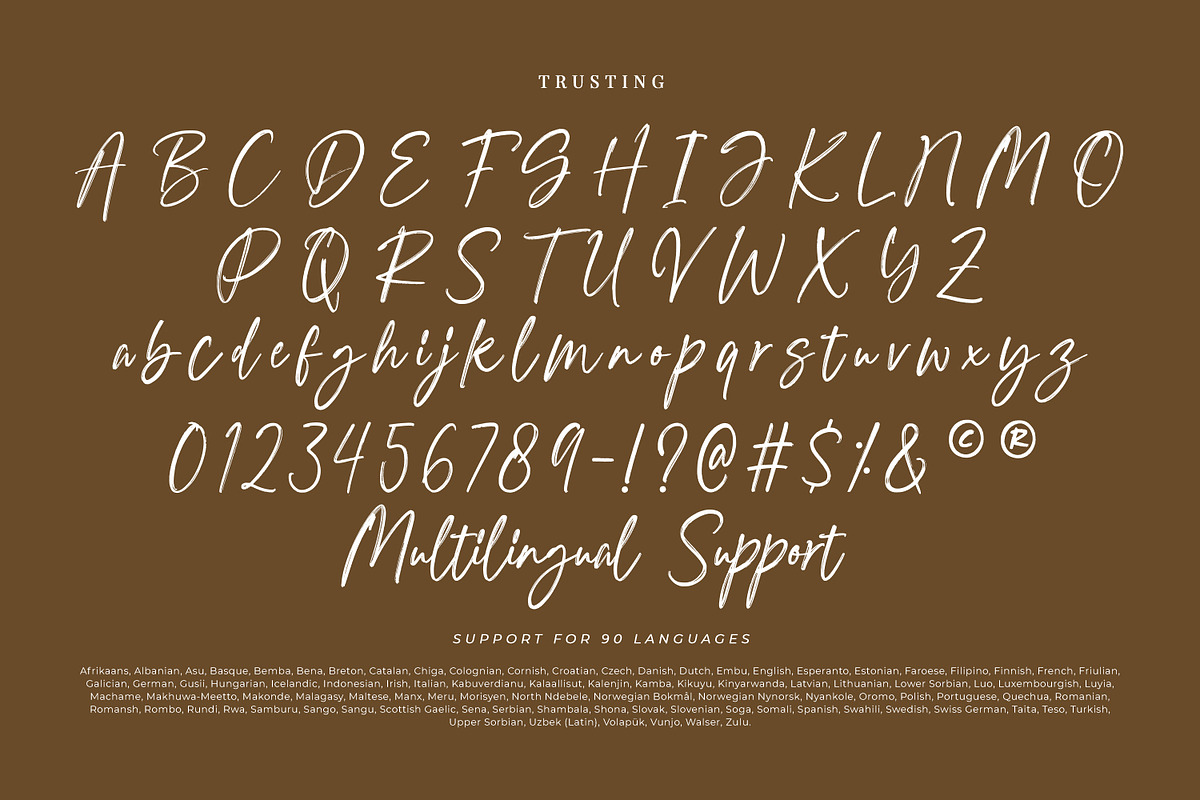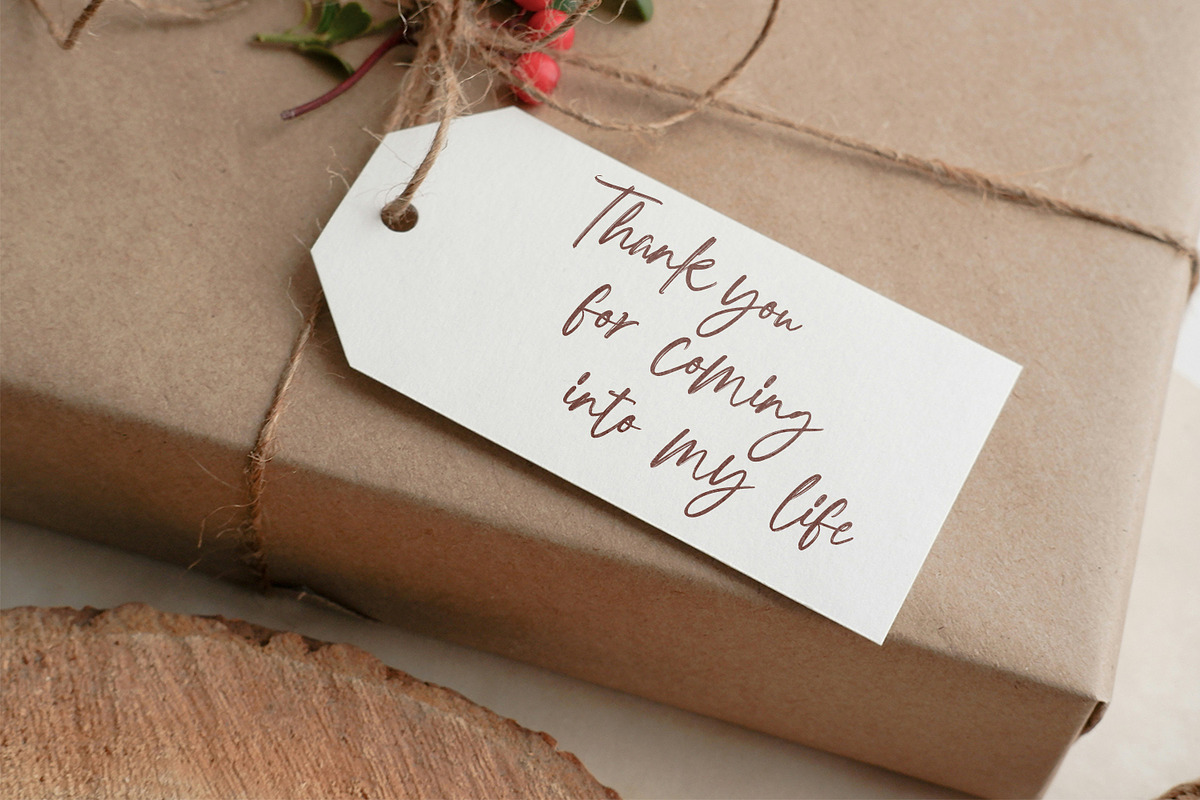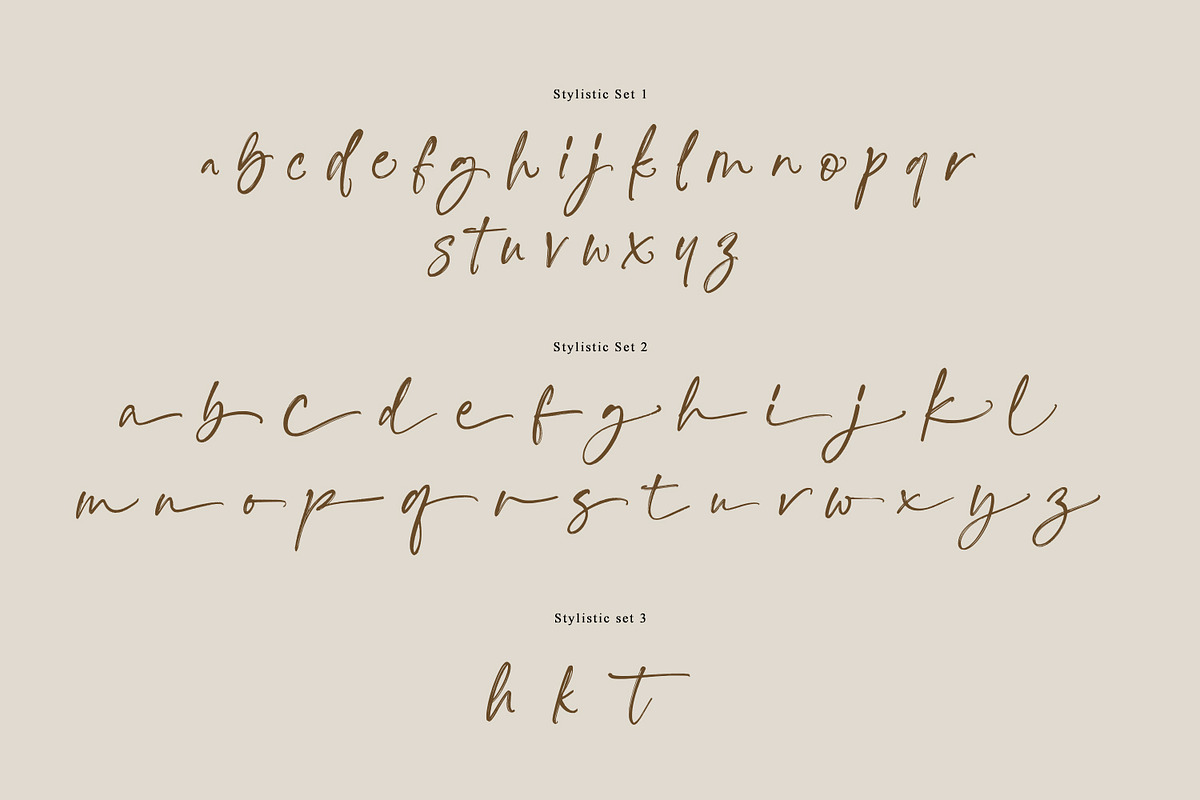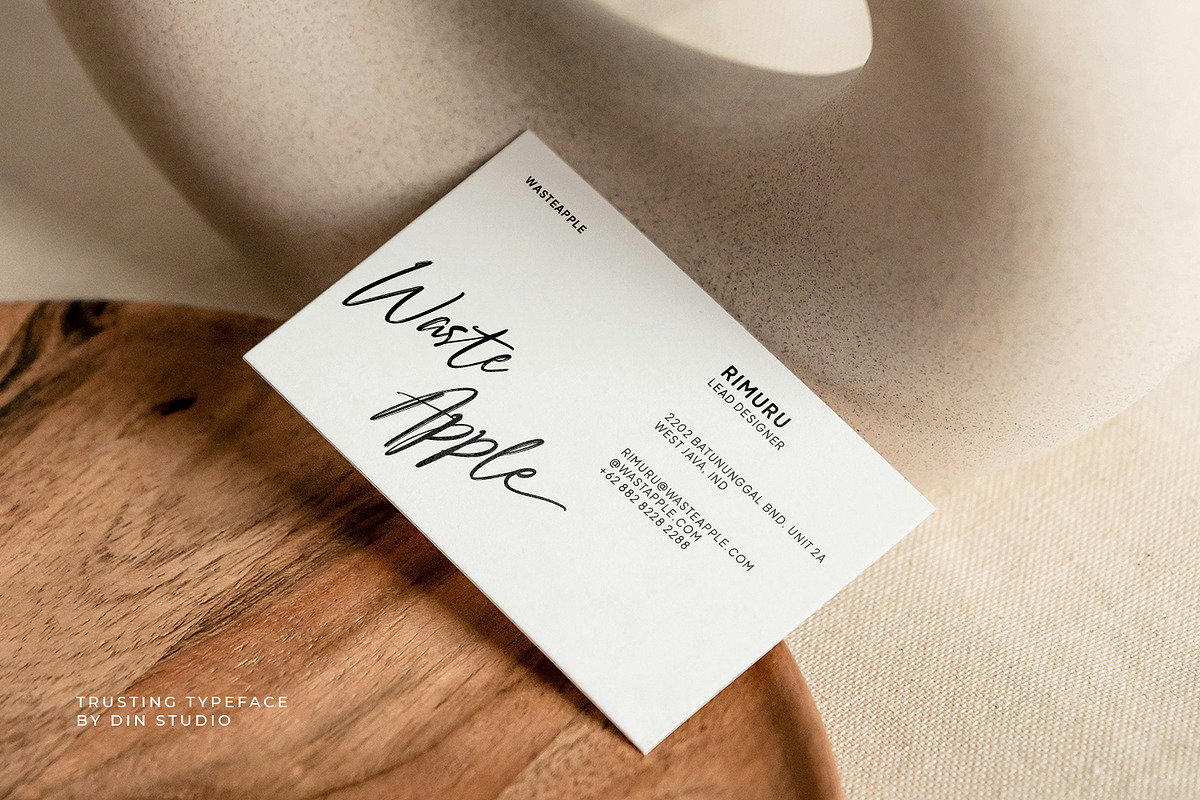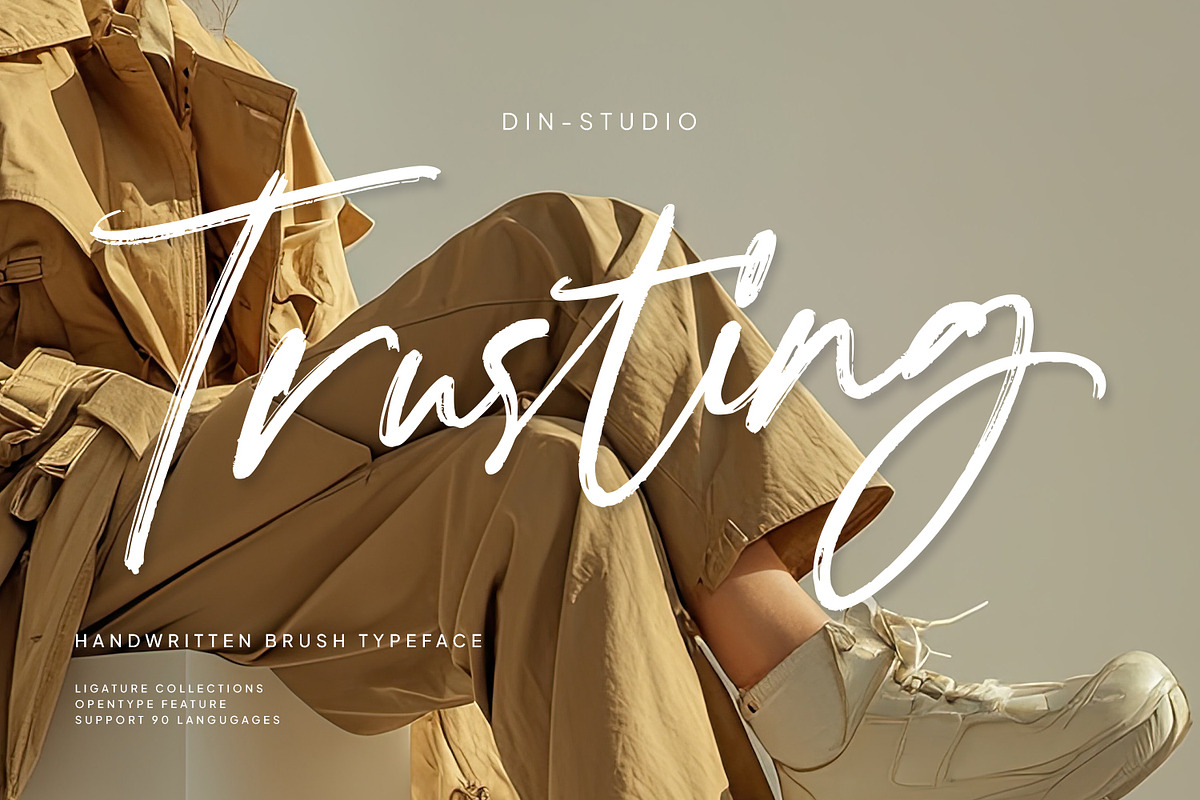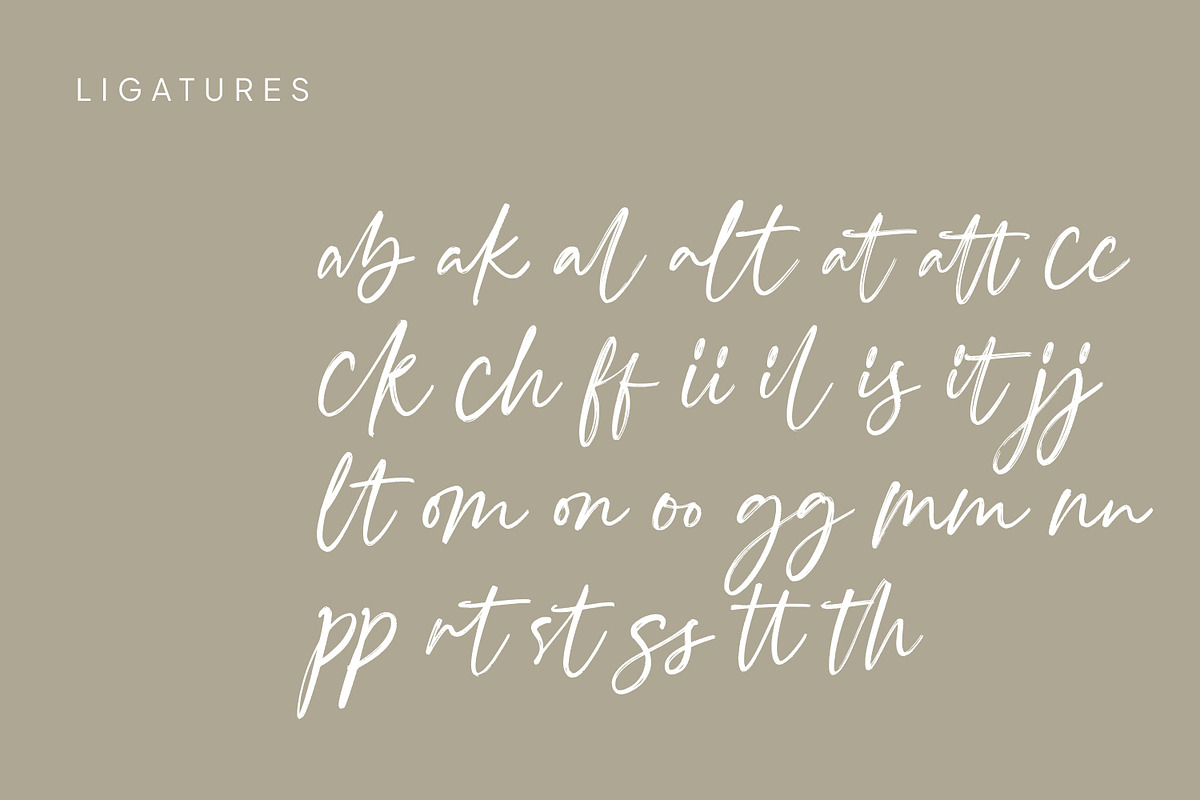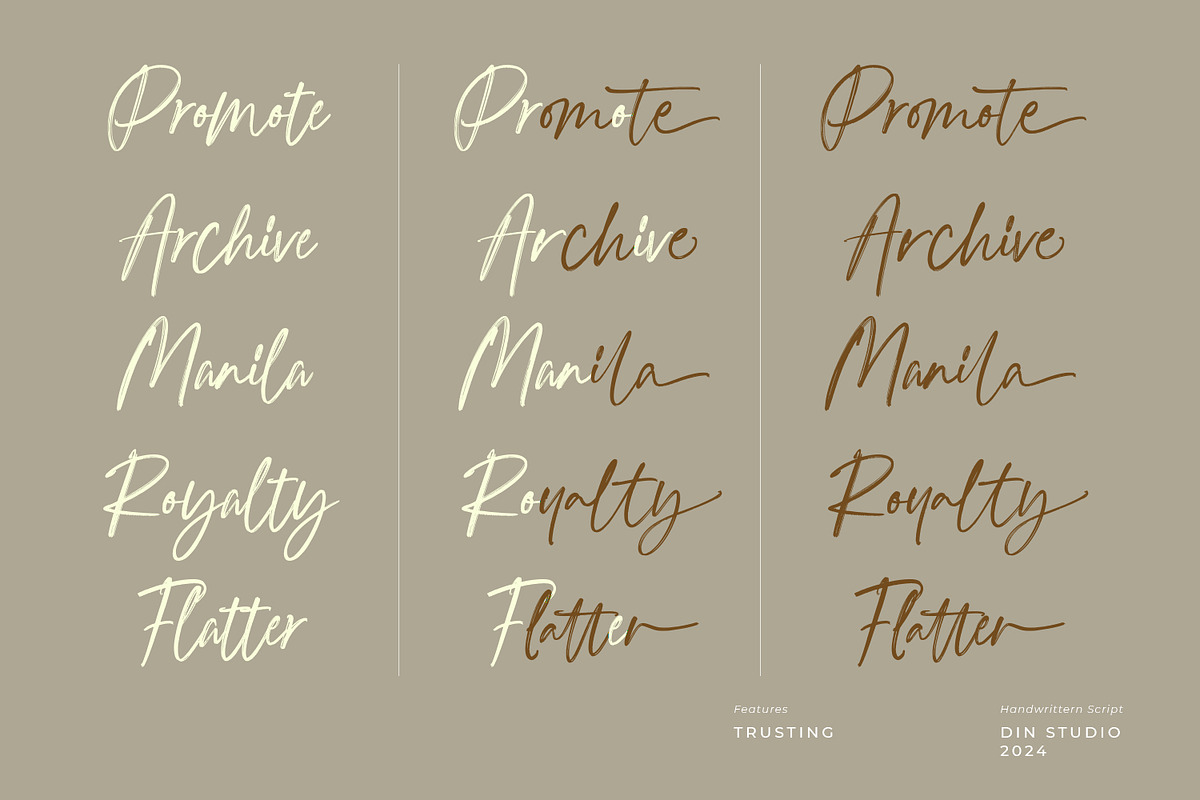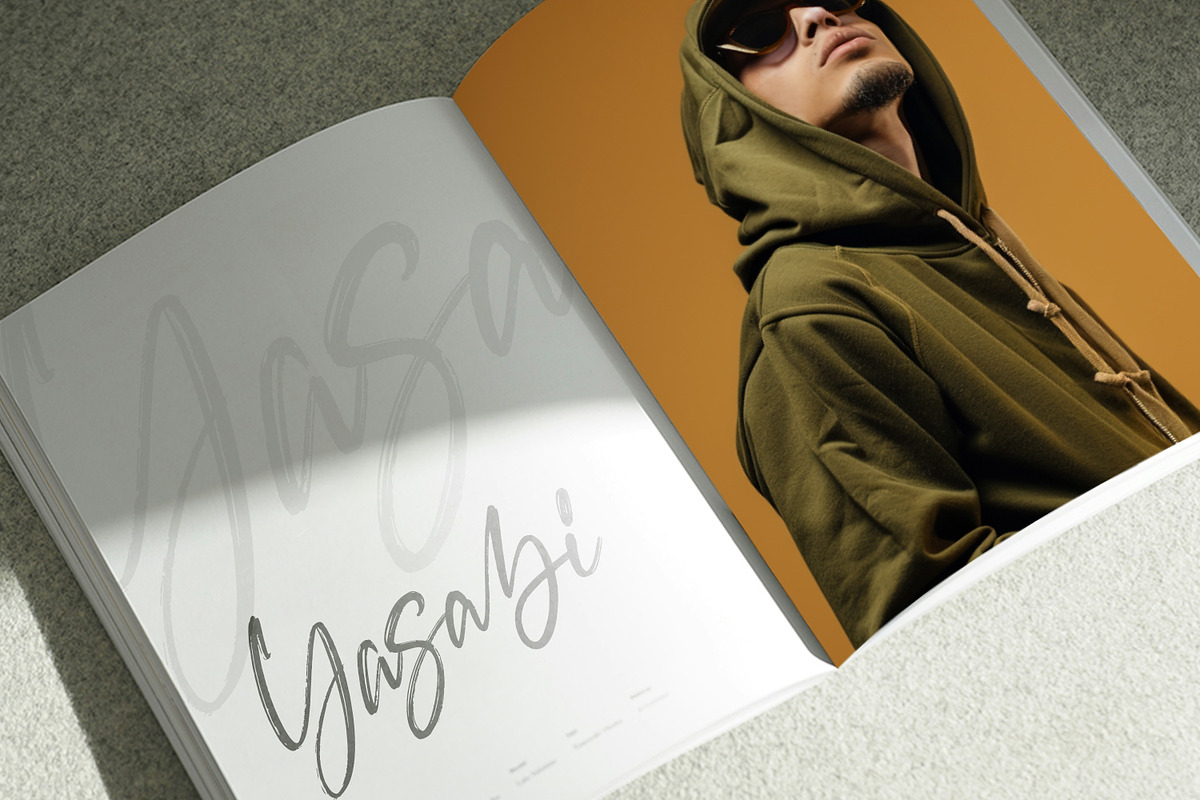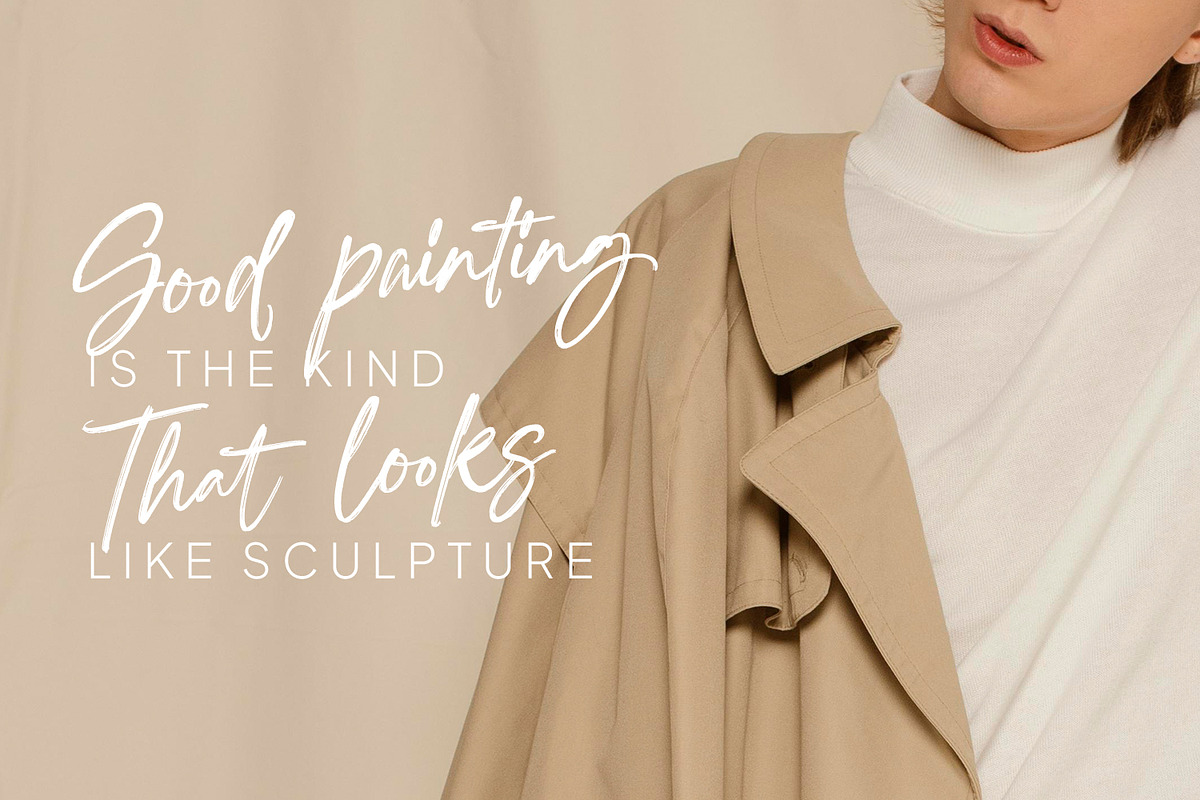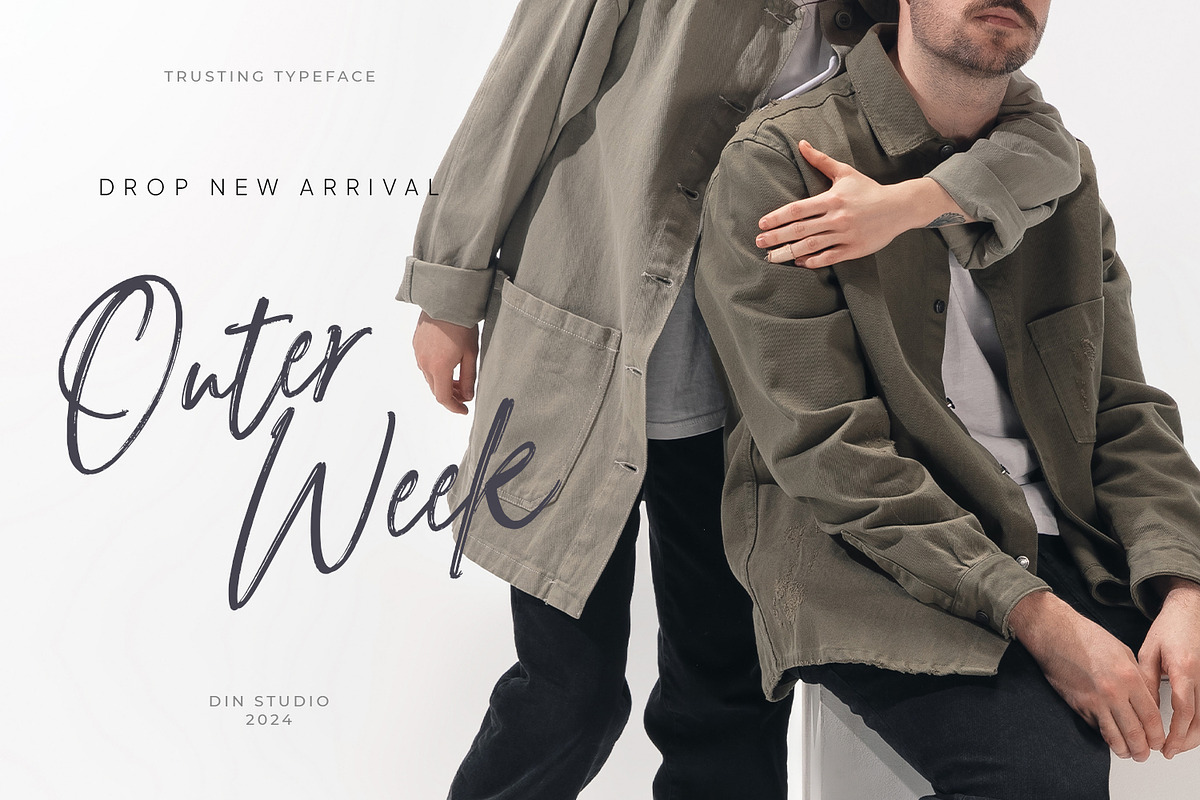
Trusting
Introducing Trusting, a beautifully crafted handwritten script font with captivating brush details that command attention. Every stroke is designed to evoke authenticity and charm, making it perfect for adding a personal, artistic touch to your projects. Elevate your designs with this eye-catching font and let its bold, brush-inspired style draw buyers in with every glance. In addition, enjoy the features here.
- Stylistic Sets
Trusting fits in posters, flyers, branding materials, print media, editorial layouts, and many more designs. Find out more ways to use this font by taking a look at the font preview.